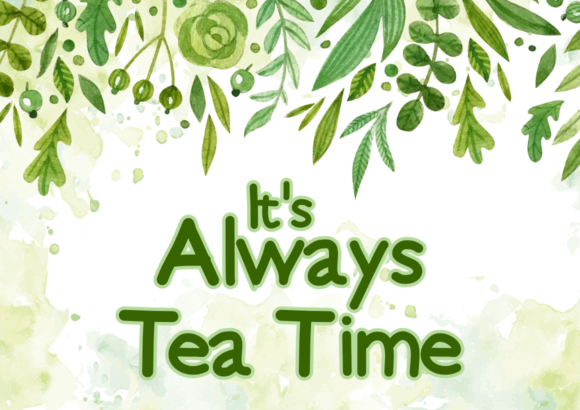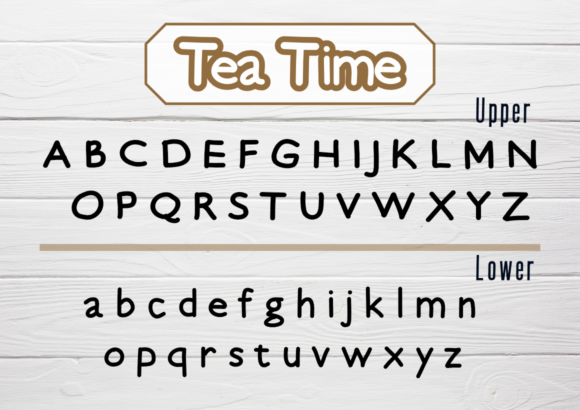
Tea Time Font
About Tea Time Font
Tea Time is a cute and casual handwritten font with an incredibly friendly feel. Whether you’re looking for fonts for Instagram or calligraphy scripts for DIY projects, this font will turn any creative idea into a true piece of art!